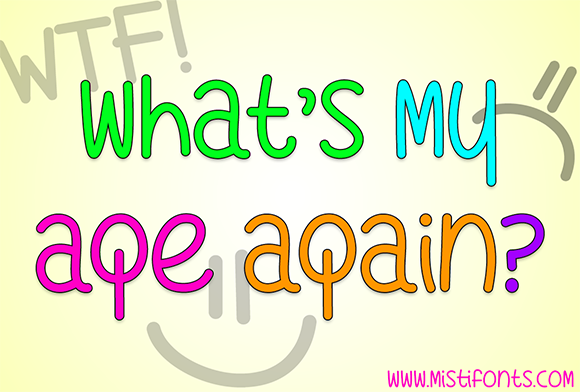
About What”s My Age Again Font
What’s My Age Again is a sassy all lowercase font that is perfect for your craft and design projects!
Special Symbols:Type _ (underscore) for the smileyType | (vertical bar) for the sad faceType * (asterisk) for WTF!